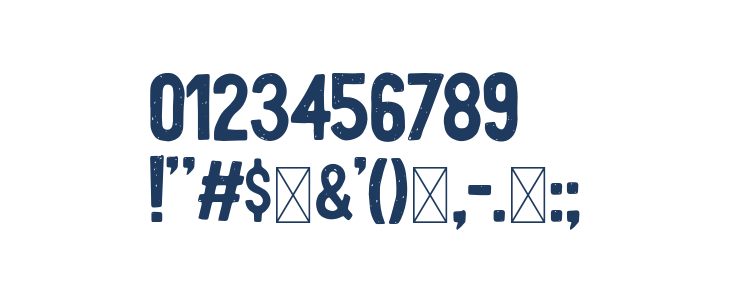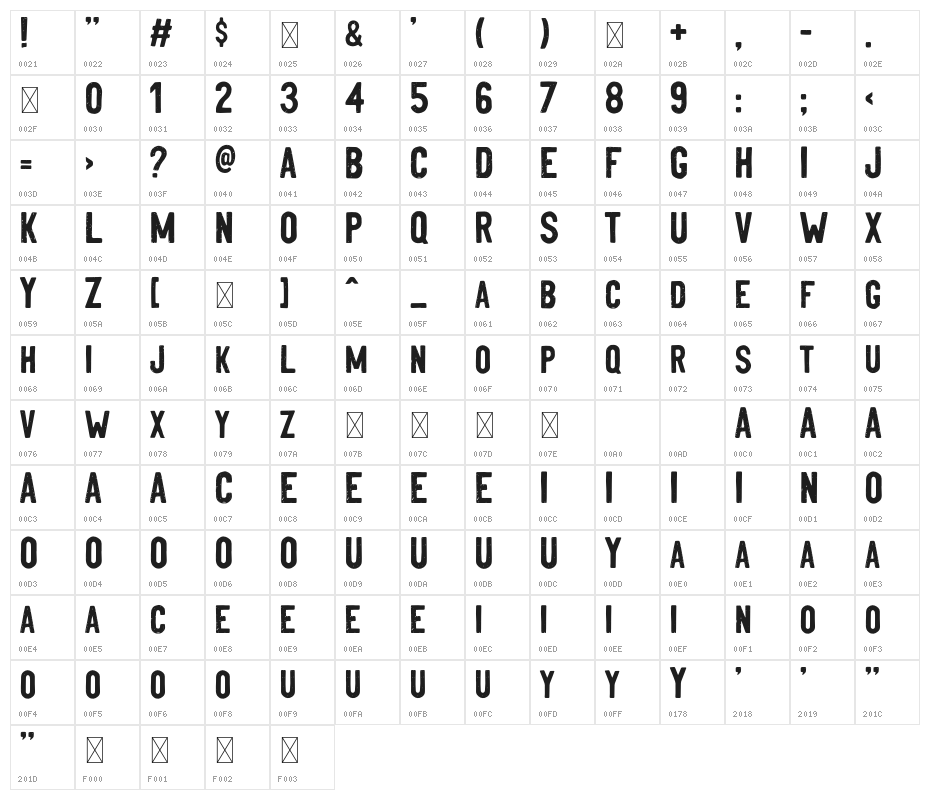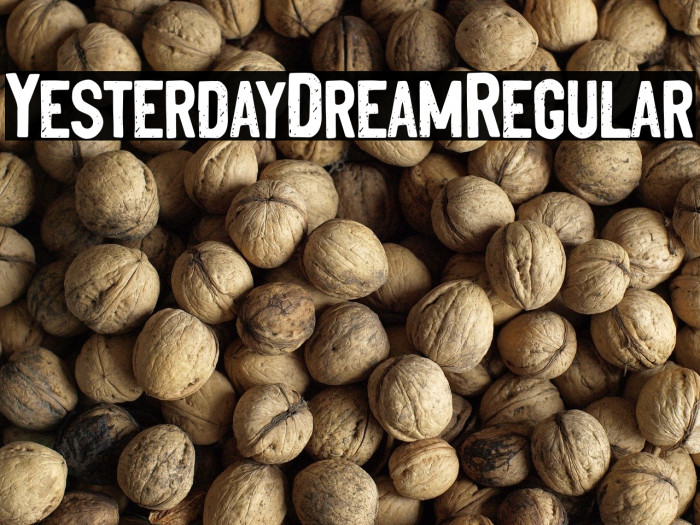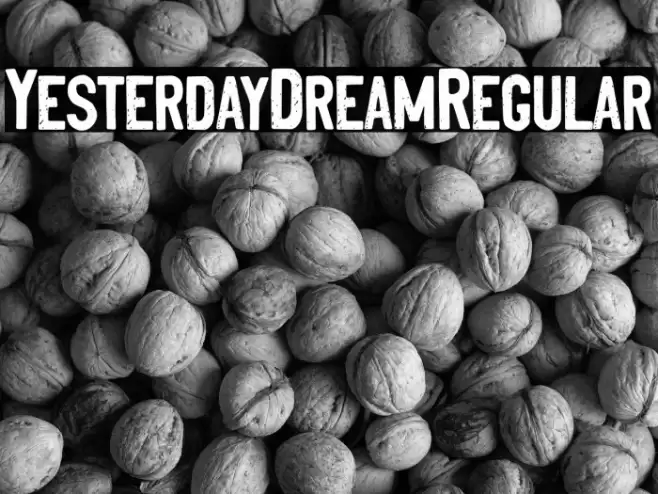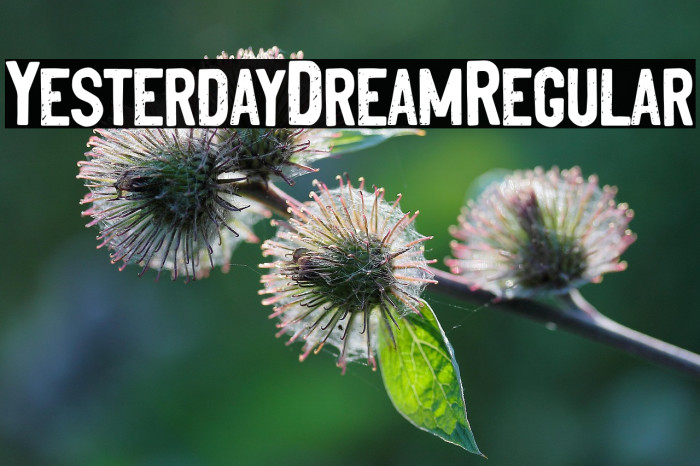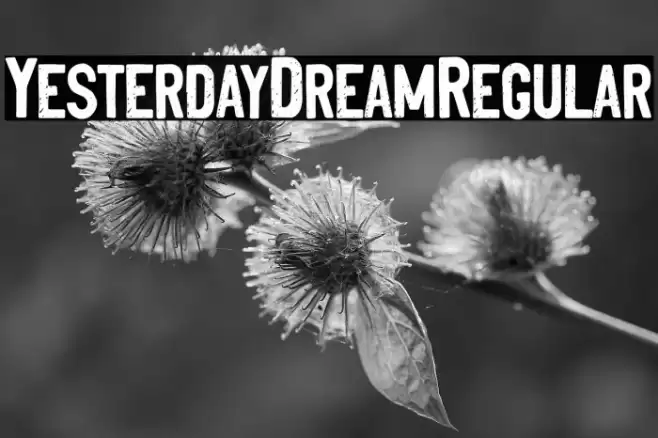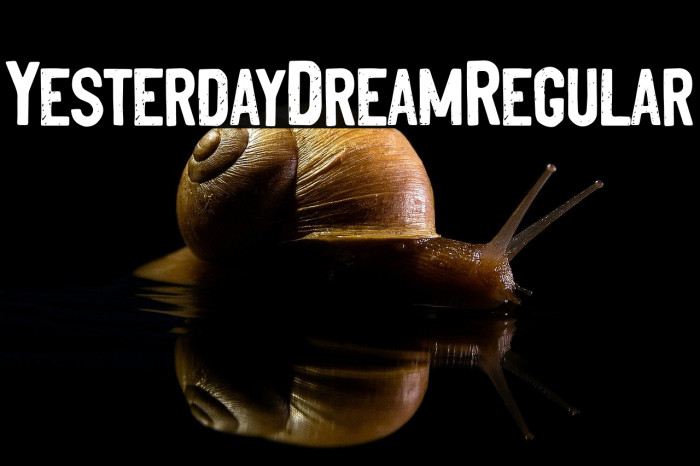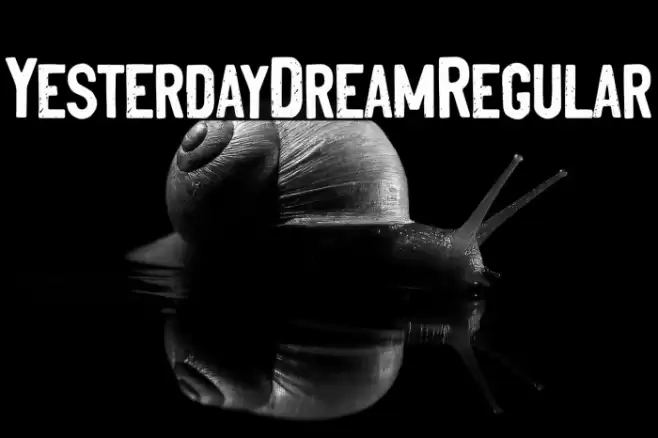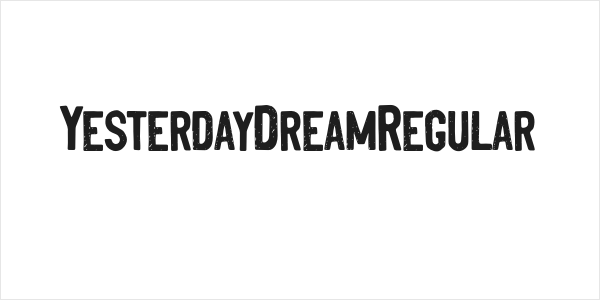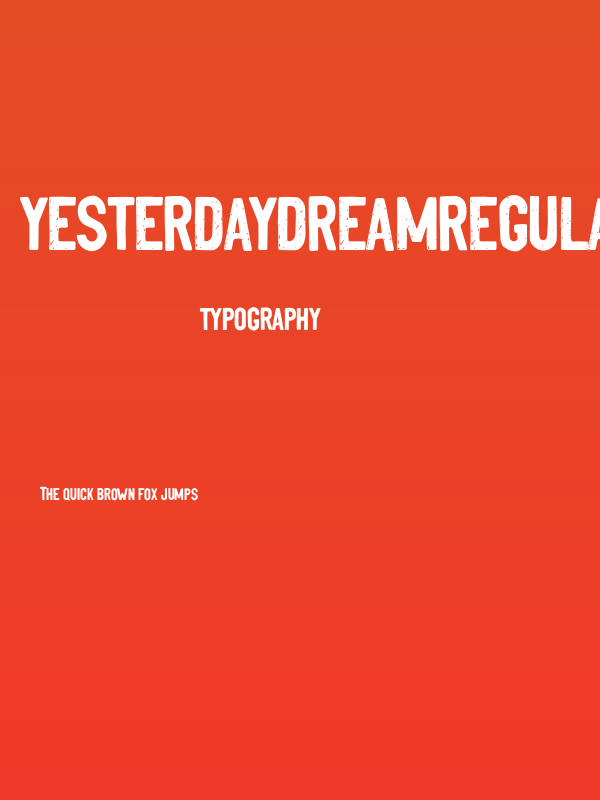
YesterdayDreamRegular Font
YesterdayDreamRegular Description
This font features a bold, textured style with a distressed appearance, giving it a vintage and rugged look. The uppercase letters are prominent and impactful, making it suitable for attention-grabbing headlines. The numerals and special characters maintain the same boldness and texture, ensuring consistency across all characters. The font's rough edges and irregularities add a handcrafted feel, making it ideal for projects that require a touch of authenticity and character.